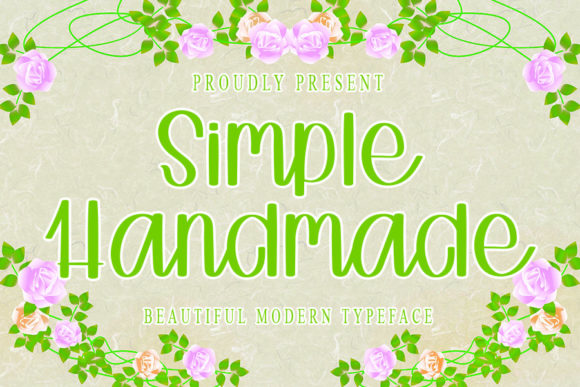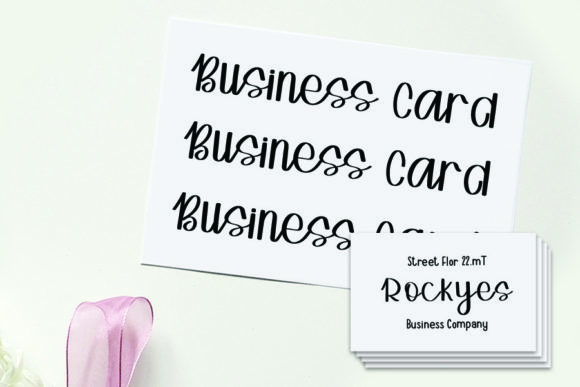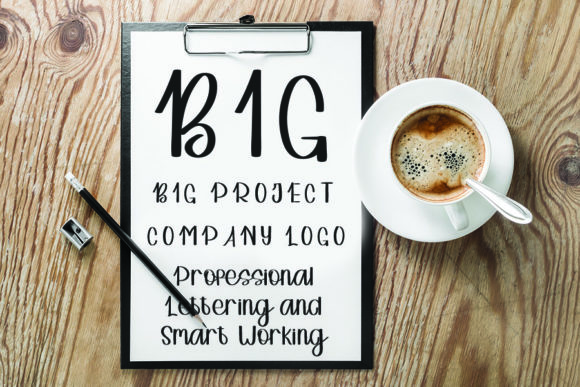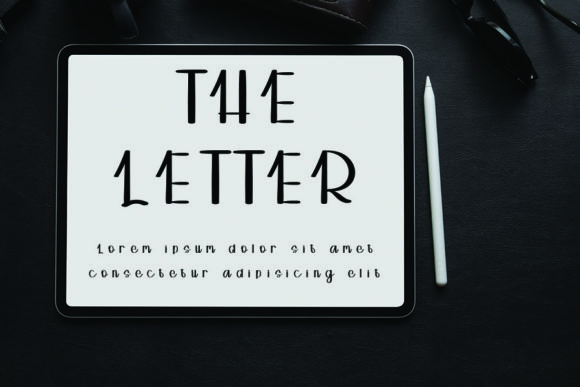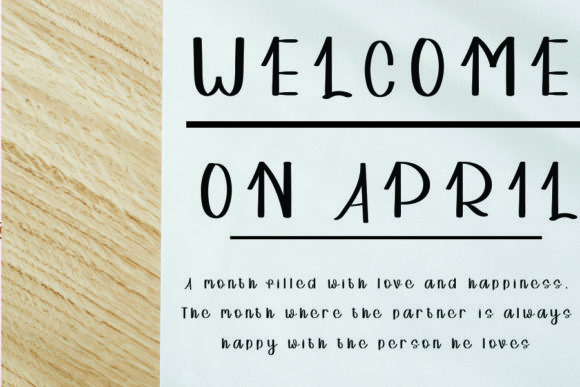
About Simple Handmade Font
Simple Handmade is a unique and elegant handwritten font that adds a touch of beauty and charm to a variety of designs. With its personalized style, this font is particularly well-suited for projects that require a distinct and heartfelt touch, such as wedding invitations, thank you cards, greeting cards, logos, and more.
The beauty of Simple Handmade lies in its handcrafted appearance and the personal touch it brings to your designs. Each letter is delicately formed, creating an organic and artistic look that adds warmth and authenticity to your creations. Whether you’re designing for weddings, special events, or simply want to infuse your designs with a personal touch, Simple Handmade is a wonderful choice.
The versatility of Simple Handmade allows it to shine in a wide range of projects. It beautifully complements wedding invitations, adding a romantic and intimate feel. It enhances thank you cards, conveying gratitude with a heartfelt touch. And it brings a sense of warmth and personality to logos and branding materials, making your business stand out.
Embrace the unique and elegant nature of Simple Handmade, and let it elevate your designs with its personalized style. Incorporate this font into your projects, and you’ll see how it adds a touch of beauty and authenticity.